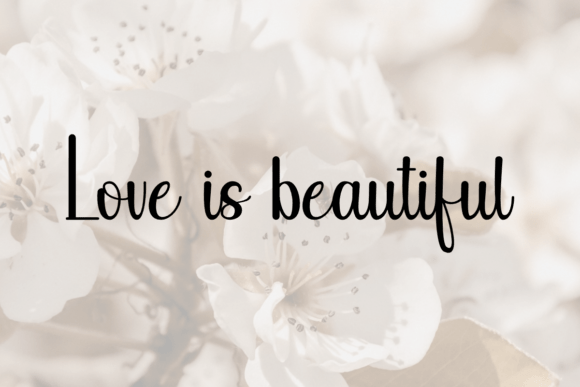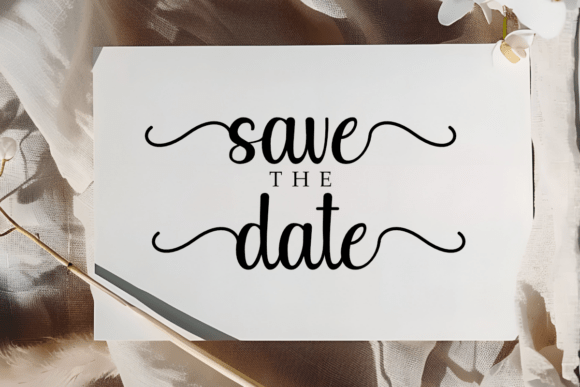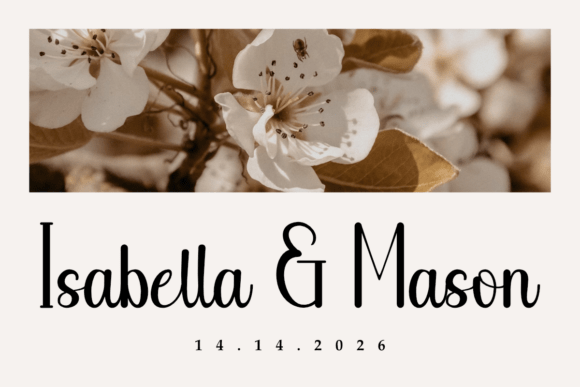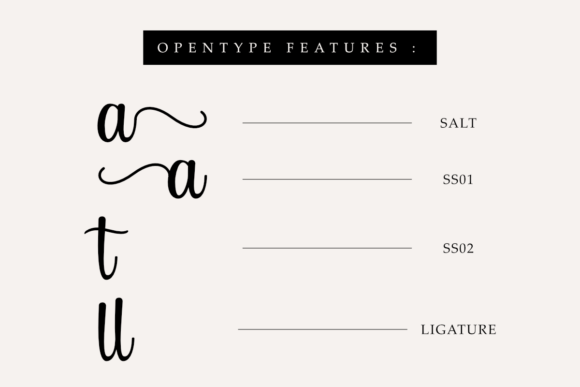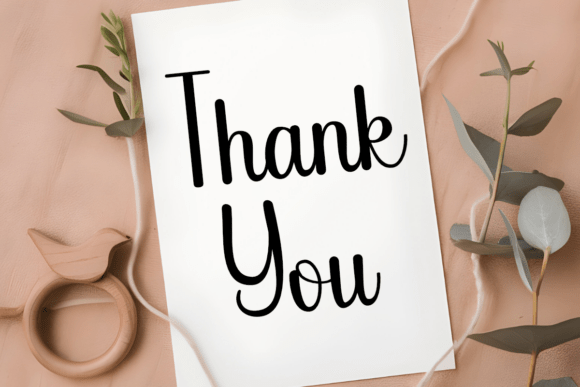
The Danilla Font: Elevating Designs with Elegance and Sophistication
I’ll never forget the moment I stumbled upon the Danilla font while working on a wedding invitation project. My client wanted a design that exuded elegance and sophistication, but I was struggling to find the perfect font to bring her vision to life. That’s when I discovered Danilla, a beautiful handwritten script font that instantly captivated me with its smooth flow and stylish curves. In this article, I’ll share my experience with Danilla, its features, and how to make the most of it in your designs.
A Personal Review of Danilla
As a designer, I’m always on the lookout for fonts that can elevate my projects and make them stand out. Danilla has become a go-to font in my arsenal, and here’s why:
- ✨ Smooth and elegant flow: Danilla’s fluid strokes and connections make it perfect for creating sophisticated designs.
- ✅ Feminine touch: The font’s subtle curves and swashes add a touch of femininity, making it ideal for beauty products, wedding invitations, and more.
- ✅ Modern calligraphy and classic elegance: Danilla seamlessly blends modern calligraphy with classic elegance, making it versatile for various design projects.
However, no font is perfect, and Danilla has a few quirks:
- 🤔 Limited use in body text: While Danilla is stunning in headings and titles, it may not be the best choice for body text due to its script nature.
- ⚠️ Swash and glyph limitations: Some users have reported limitations with swashes and glyphs, which can affect the font’s versatility.
The Story Behind Danilla
Danilla was designed by a team of typographers who aimed to create a font that combines modern calligraphy with classic elegance. Inspired by traditional handwriting and calligraphy, Danilla’s creator sought to craft a font that’s both sophisticated and approachable. The result is a beautiful, elegant script font that’s perfect for a wide range of design projects.
| Font Name | Danilla Font |
| Author | Letterayu |
| What is Danilla font best used for? | Danilla is perfect for branding, logos, wedding invitations, beauty products, social media graphics, packaging, and more. |
| Does Danilla support OpenType features? | Yes, Danilla supports OpenType features like swashes, glyphs, and stylistic alternates. |